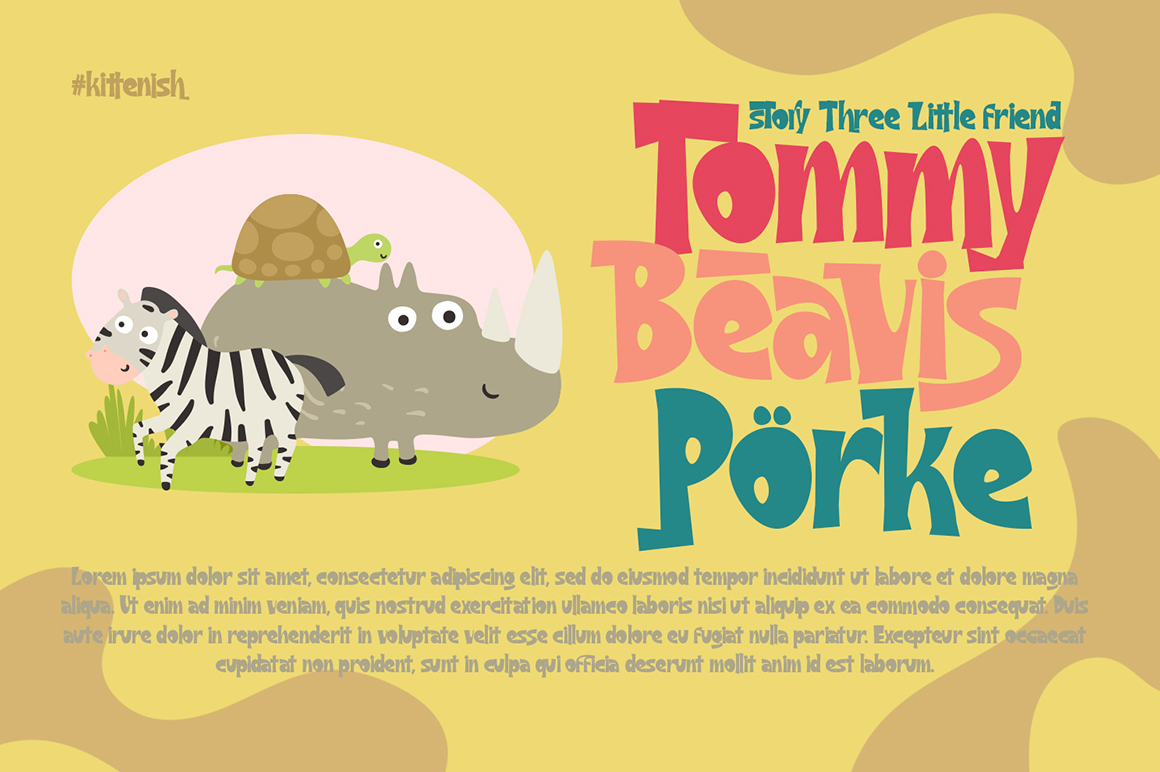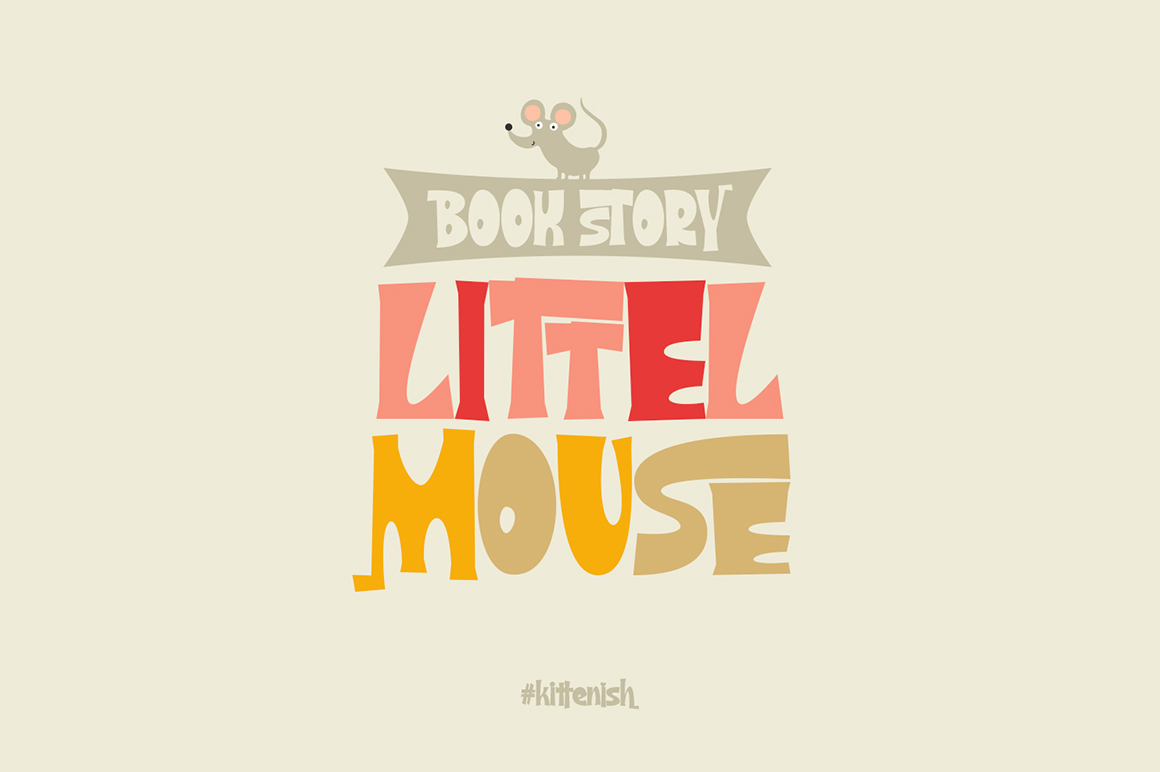
Kittenish Playful Font is a playful font and will be perfect for book, title branding, product packaging, invitation, quotes, t-shirt, label, poster, logo etc.